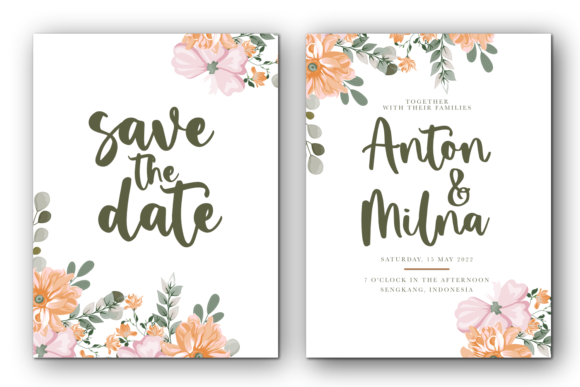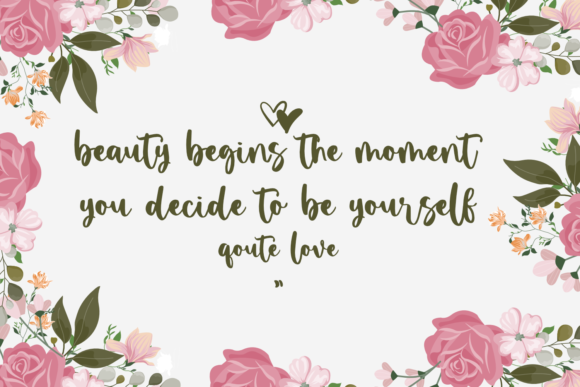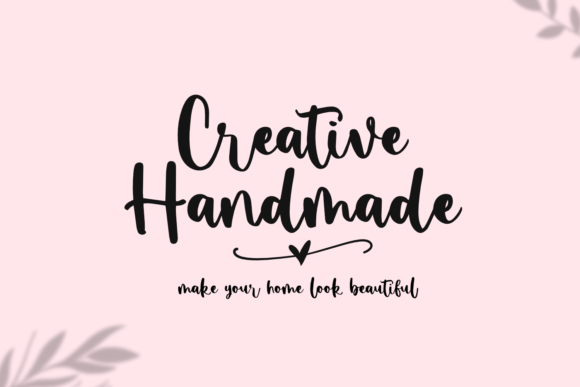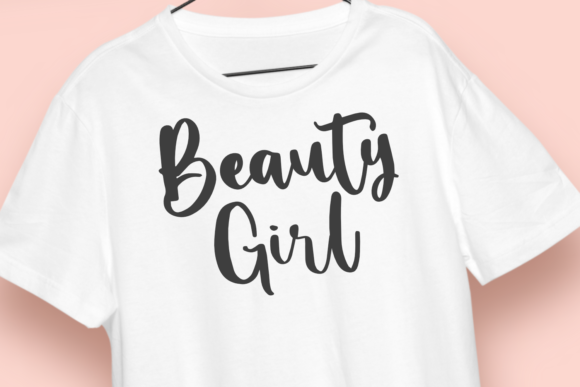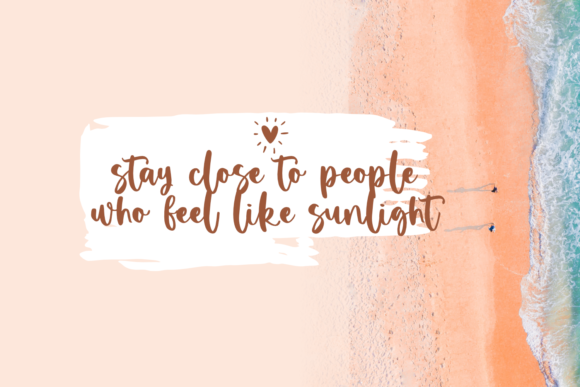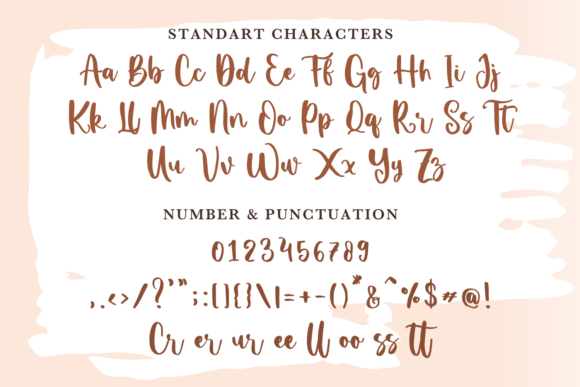
The Perfect Harmony of Design
You know that moment when you stumble upon a font that makes your heart skip a beat? It’s like the entire design universe has come together in perfect harmony. For many of us, that moment happened when we discovered the Beauty Melody Font. This cute and delicate handwritten font is a true masterpiece that has captured the hearts of designers around the world.
So, what makes the Beauty Melody Font so special? It’s not just its unique style, but its timeless charm that makes it perfect for creating spectacular designs. Whether you’re a seasoned designer or just starting out, this font is a valuable addition to your toolkit. Its versatility and elegance make it ideal for a wide range of projects, from wedding invitations to social media graphics.
Beauty Melody Font Key Features
- Font Style: Script, Handwritten, Elegant
- Unique Characteristics: Includes 500+ unique glyphs, supports various languages, and features a smooth, flowing design
Beauty Melody Font Review
Overall, I found the Beauty Melody Font to be a visually appealing choice for designers looking to add a touch of elegance to their projects. Here’s a breakdown of what works well and what could be improved:
- The font’s refined and delicate appearance makes it perfect for beauty and wellness-related projects.
- The variety of weights and styles available provides designers with flexibility when it comes to creating different visual effects.
- The font’s legibility is good, making it suitable for body text as well as headlines.
- The font may not be the best choice for projects that require a more modern or edgy look.
- The font’s elegance may come across as too formal or old-fashioned in certain contexts.
- The font’s support for certain languages may be limited.
In conclusion, the Beauty Melody Font is a solid choice for designers who want to add a touch of sophistication to their projects. While it may not be the best fit for every project, it’s definitely worth considering for those that require a refined and elegant look.
Beauty Melody Font is ideal for creating elegant and sophisticated designs. Use it for:
- Magazine and newspaper headlines.
For the best results, use the font in conjunction with a high-quality image or design element.
Q: Are there any font variations or weights available for the Beauty Melody Font?
Yes, the Beauty Melody Font package includes a range of font weights and styles, including regular, bold, italic, and bold italic. You can also use font hinting and kerning to fine-tune the font’s appearance in your design application.